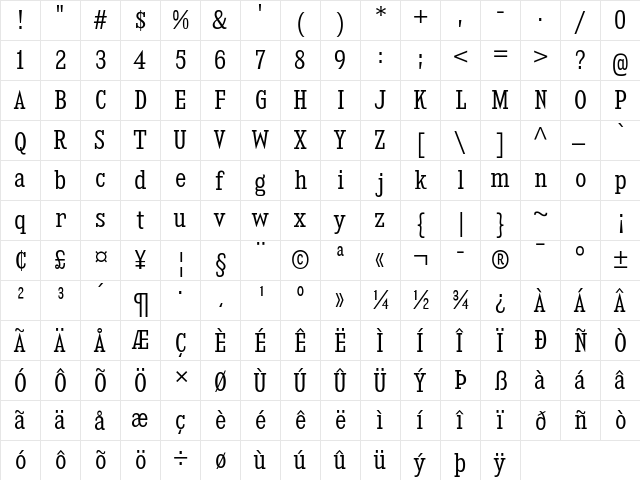
Kingsbridge Condensed Book
Design Context for Kingsbridge Typeface
Kingsbridge is a composed and adaptable typeface that performs quietly and consistently across a wide range of design contexts. Its narrow stance lets it pack a punch even in space-constrained designs.
Pro Tip: Pair Kingsbridge with a font of contrasting weight or personality to build a more expressive typographic hierarchy.